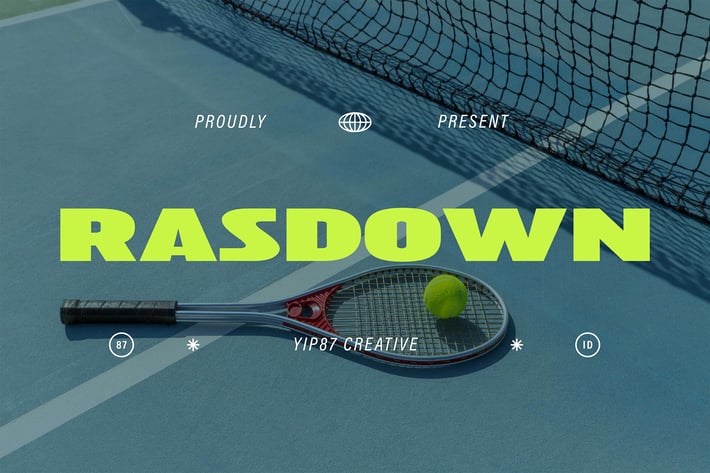
Razdown - Modern Sport Bold Expanded Logo Font
Razdown - Modern Sport Bold Expanded Sans Serif - Logo and Display Font
Razdown is a Clean Minimalist Modern Expanded Bold Sans Serif, designed specifically for logos, branding, headers / headline, game and sport / gym branding. Razdown is impactful and timeless logos and branding materials. Wavers Font ensures your designs make a lasting impression. Elevate your branding design projects with Razdown Font today.